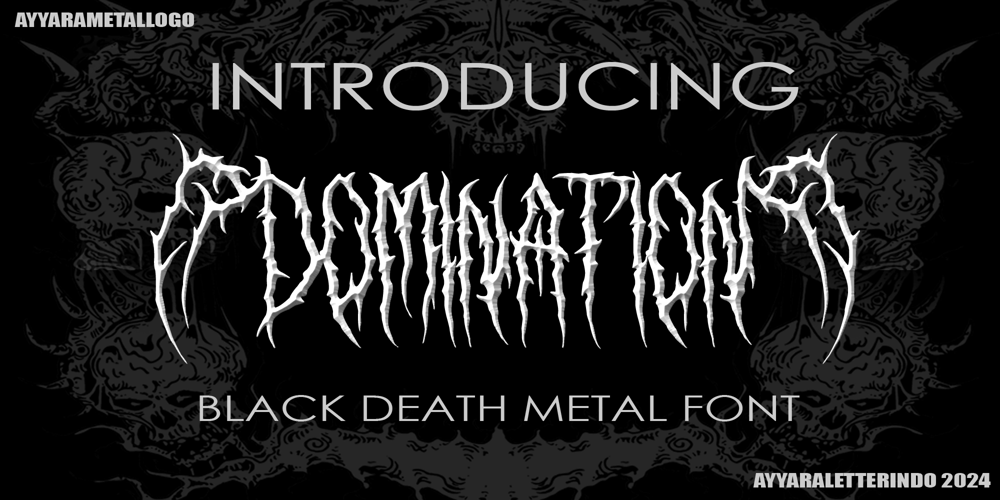
Domination
Domination font
Domination Font Family was designed by published by Ayyara Letterindo. Domination contains 1 styles and family package options. Domination is a black death metal font and inspired by 90’s old school death metal bands that can be used for your band logos, clothing brand and your any metal merchandise. You can immediately make your font or text creativity with the help of this unique black death metal font font. Combine it with black metal or death metal ornaments and make your cool metal design with easy!